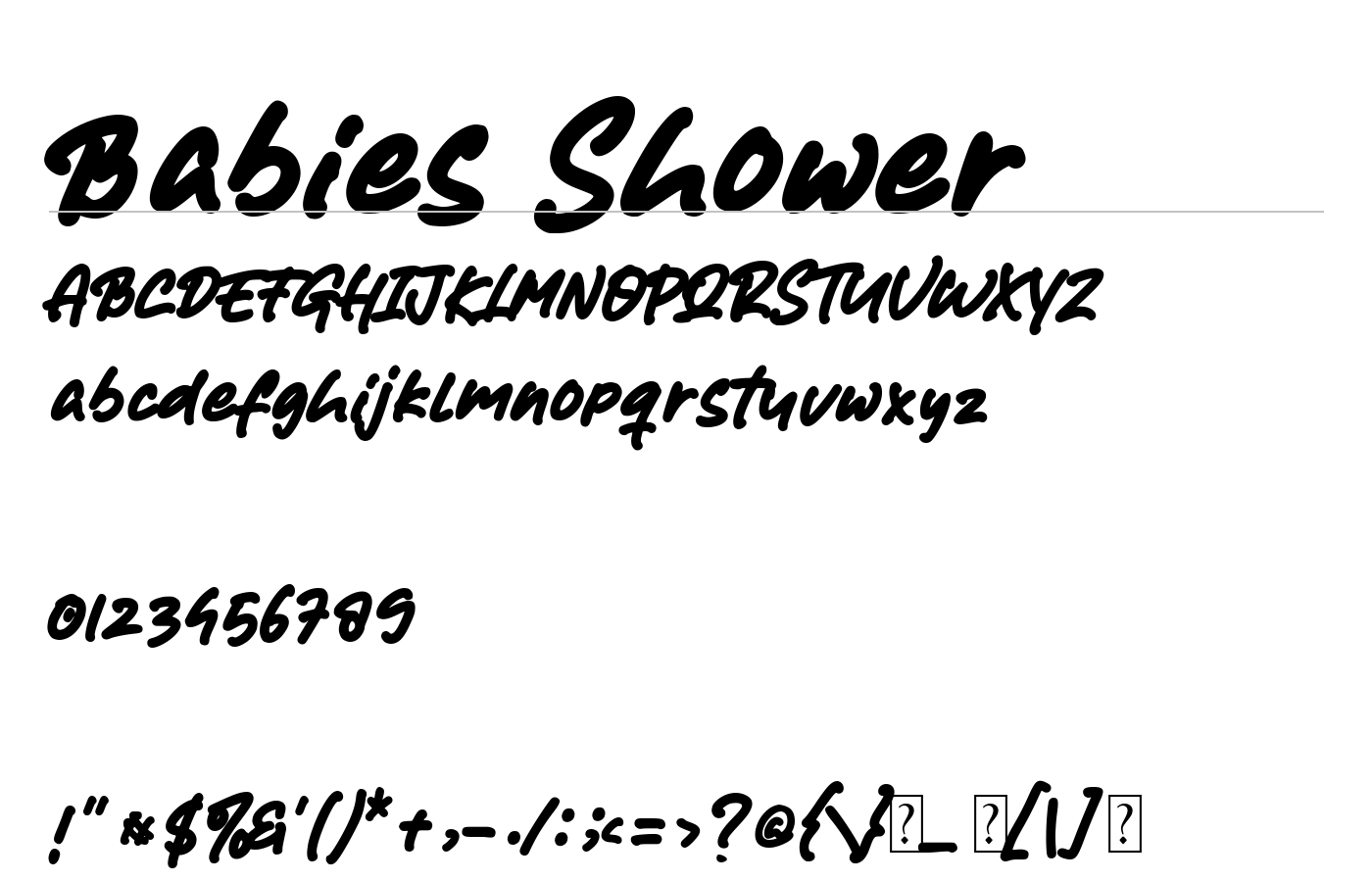
Babies Shower Font is a playful, handwritten script font with a bold weight and smooth, rounded strokes that create a warm and friendly feel. Its casual, slightly slanted letterforms with lively curves make it perfect for baby-themed designs, invitations, and any project looking to convey a sense of fun and approachability. This font works well for headlines and decorative text where a personal, cheerful touch is desired.
Babies Shower Font
About Babies Shower Font
| Designer | Muh Aswar By Azetype Studio |